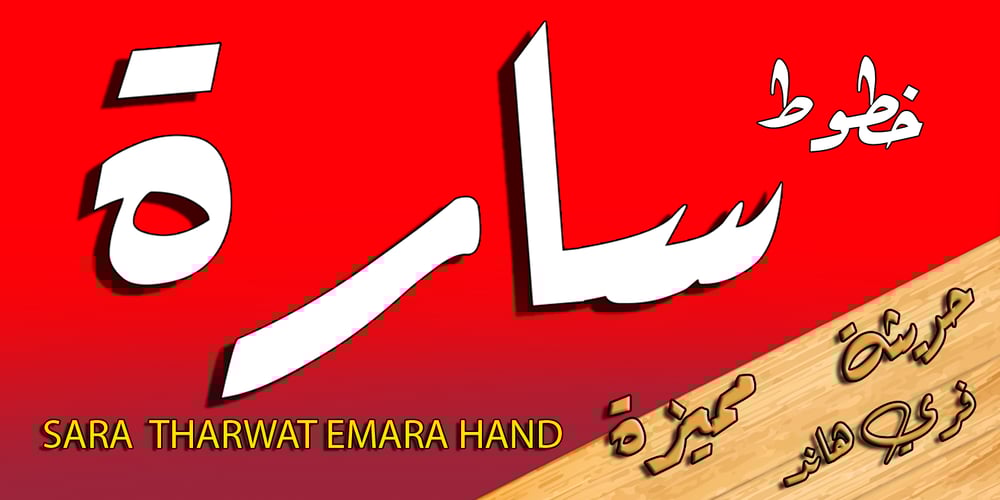
TE Sara Font Family was designed by Tharwat Mohamed Emara and published by Tharwat Emara. TE Sara contains 3 styles and family package options. It is the most common font and is used in most Arab countries because it has the potential to be written in a narrow space when compared to other Arabic fonts. It is suitable for titles of books, magazines, daily newspapers, commercials, banners, advertising, holiday cards, newspaper headlines, Introduction to students.